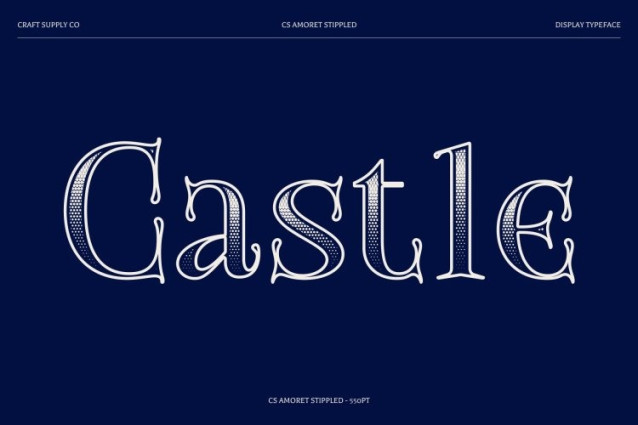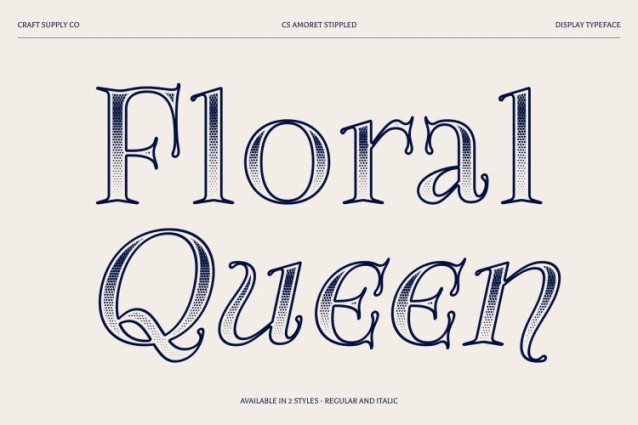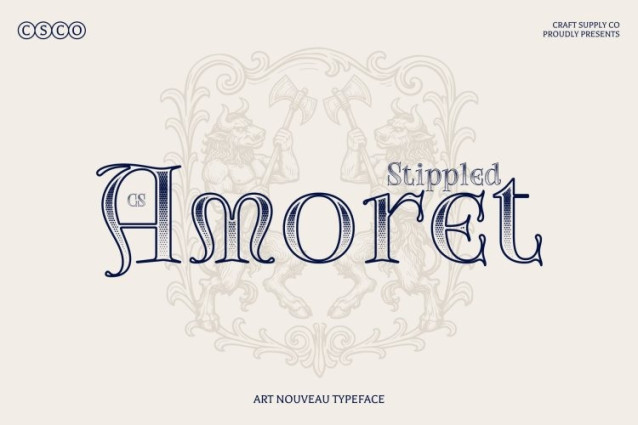
CS Amoret Stippled Font
CS Amoret Stippled Font This is a display serif font that embodies the elegance and artistic richness of the Art Nouveau movement, now elevated with a dense stippled texture. Its intricate, flowing lines and ornate serifs are inspired by natural forms and organic motifs, while the dotwork surface reminiscent of classic ink-dot and stippling illustration techniques adds depth, softness, and a handcrafted visual charm. The result is a font that feels timeless, decorative, and artistically refined.
Elegant, Decorative Letterforms with Textured Depth
Defined by curvaceous serifs and graceful ornamental flourishes, this font brings a distinctive artistic personality to every character. The stippled detailing enhances the sculptural quality of the letterforms, giving them a rich, tactile presence. This combination of flowing elegance and textured nuance makes the font ideal for designs that demand classic beauty with expressive originality.
Perfect for Timeless, Artistic, and Luxury Projects
From prestigious branding and luxury publications to elaborate invitations and artistic design projects, this font delivers a refined and captivating typographic voice. Its Art Nouveau heritage, combined with stippled artistry, creates a sense of vintage sophistication and creative flair perfect for high-end visual identities that celebrate elegance, craftsmanship, and timeless design.